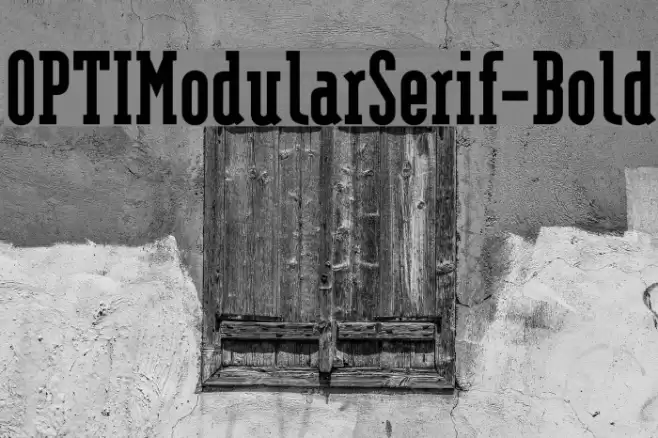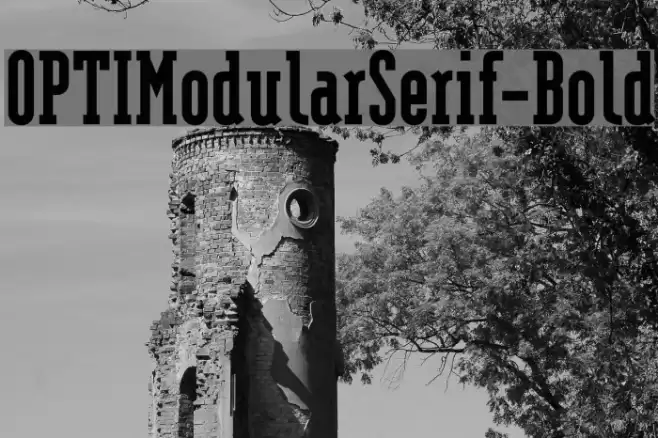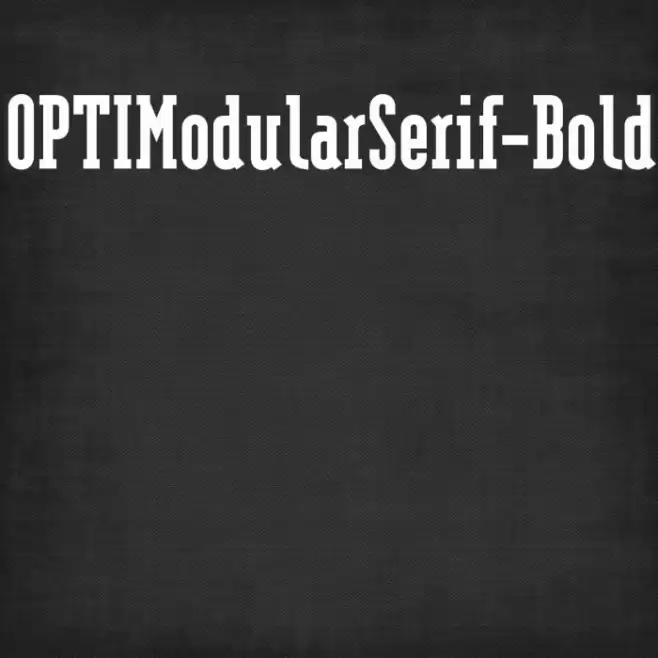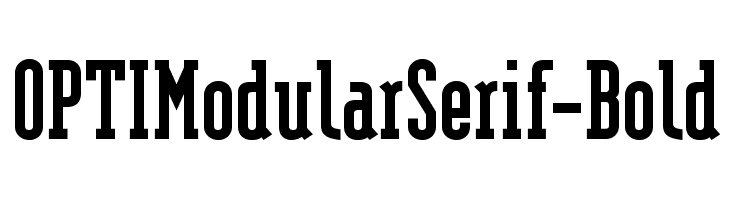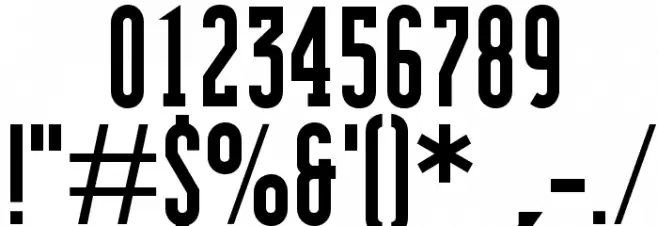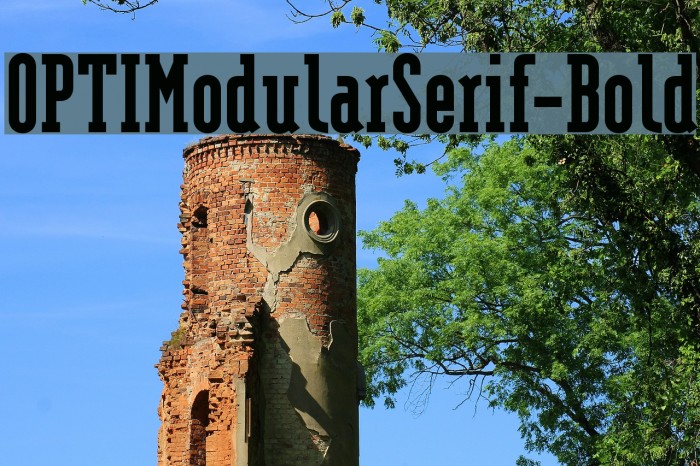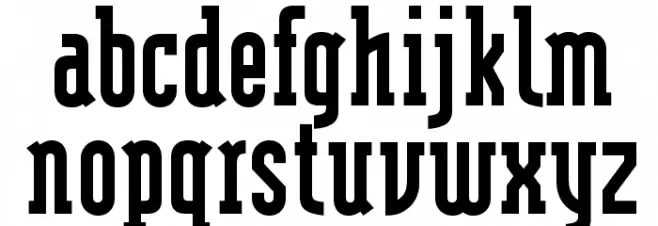
OPTIModularSerif-Bold Font
OPTIModularSerif-Bold Description
This font features a bold and striking serif design with a modular aesthetic. The characters are tall and narrow, giving a condensed appearance that emphasizes verticality. The serifs are pronounced, adding a classic touch to the otherwise modern structure. The uppercase letters are uniform in height, while the lowercase letters maintain a consistent baseline, enhancing readability. The numerals are distinct and align well with the overall style, making them suitable for both text and display purposes. Special characters are well-integrated, maintaining the font's cohesive look.
A bold, modular serif font with a tall, condensed structure and pronounced serifs from Uncategorized fonts.
- Proposed Projects: Ideal for headlines, posters, branding, and editorial design where a bold statement is needed.
- Character Spacing: Tight